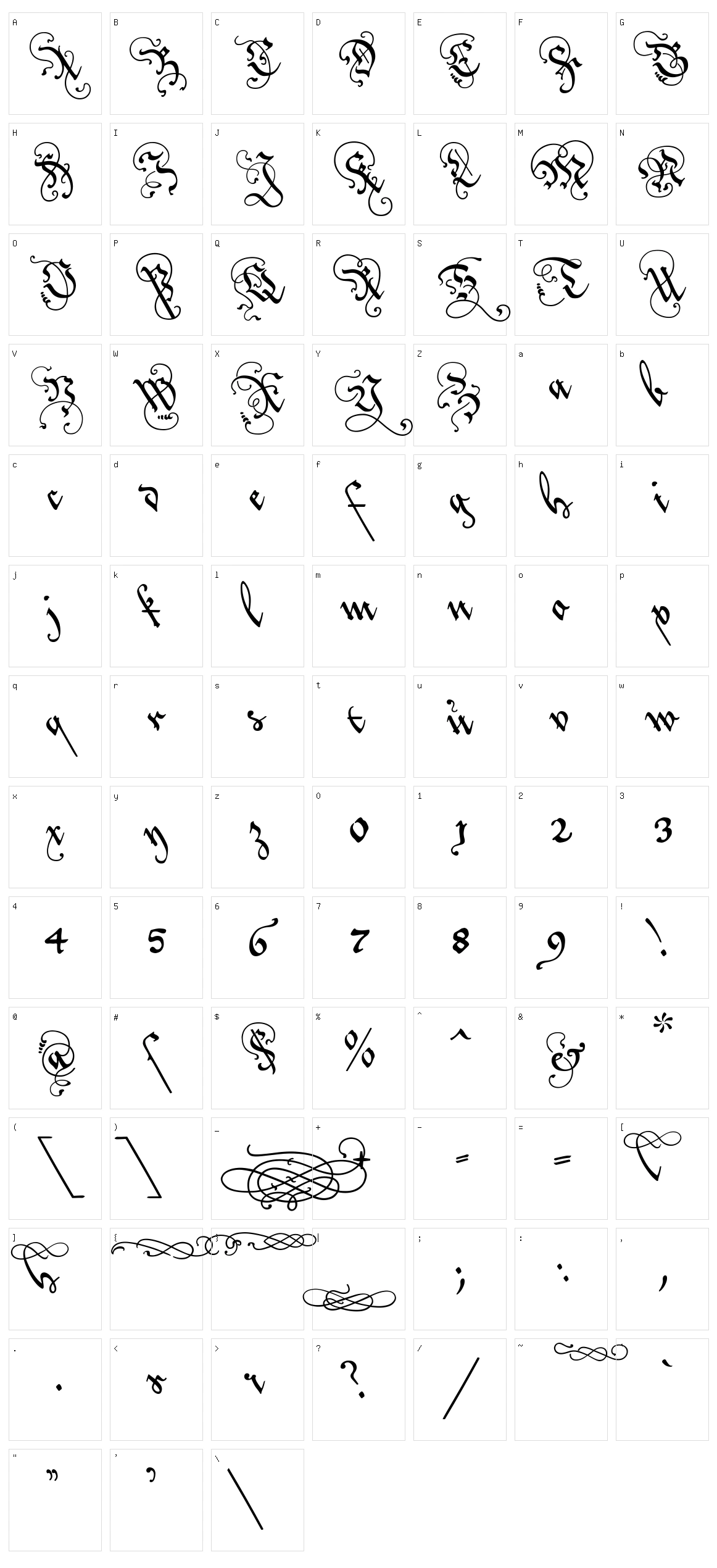
Loves Labour
Love'sLabour
This font is based on a sample of 'dainty' Chancery writing, most probably published in 1716, and most probably written by the German writing master Michael Baurenfeind.
Apart from the *long s* on the number sign, you'll find some alternate characters, and lots of swashes in this font. Those are:
- a complicated underline swash on the underscore
- a more simple underline swash on the bar and broken bar sign
- an alternate *s* on the 'less than' sign. This is the original *s* from the template (I didn't like it).
- an alternate *r* on the 'greater than' sign
- a swashed *l* on the left bracket
- a swashed *h* on the right bracket
- a swashed *b* on the long s sign
- a swash on the left curly bracket (to be used like an accent)
- a swash on the right curly bracket (to be used like an accent)
- a swash on the ASCII tilde (to be used like an accent).
The ornament on the micro sign has been inspired by a detail from a 17th century book on fountain architecture.
UPDATE 2010 has redesigned all of the composite glyphs (correcting the *dcaron*, *L/lcaron*, and *tcaron*), and enlarged the dashes.